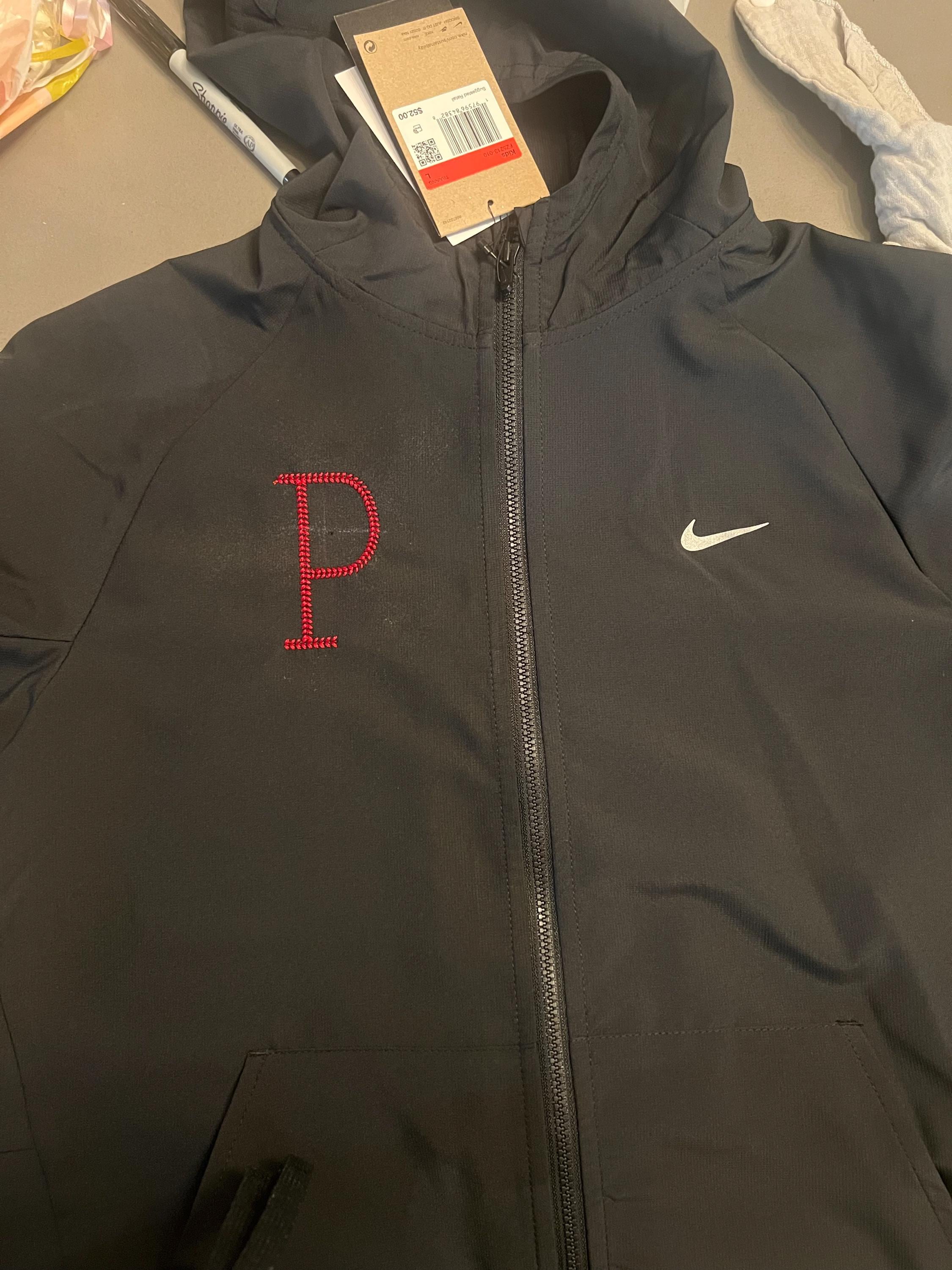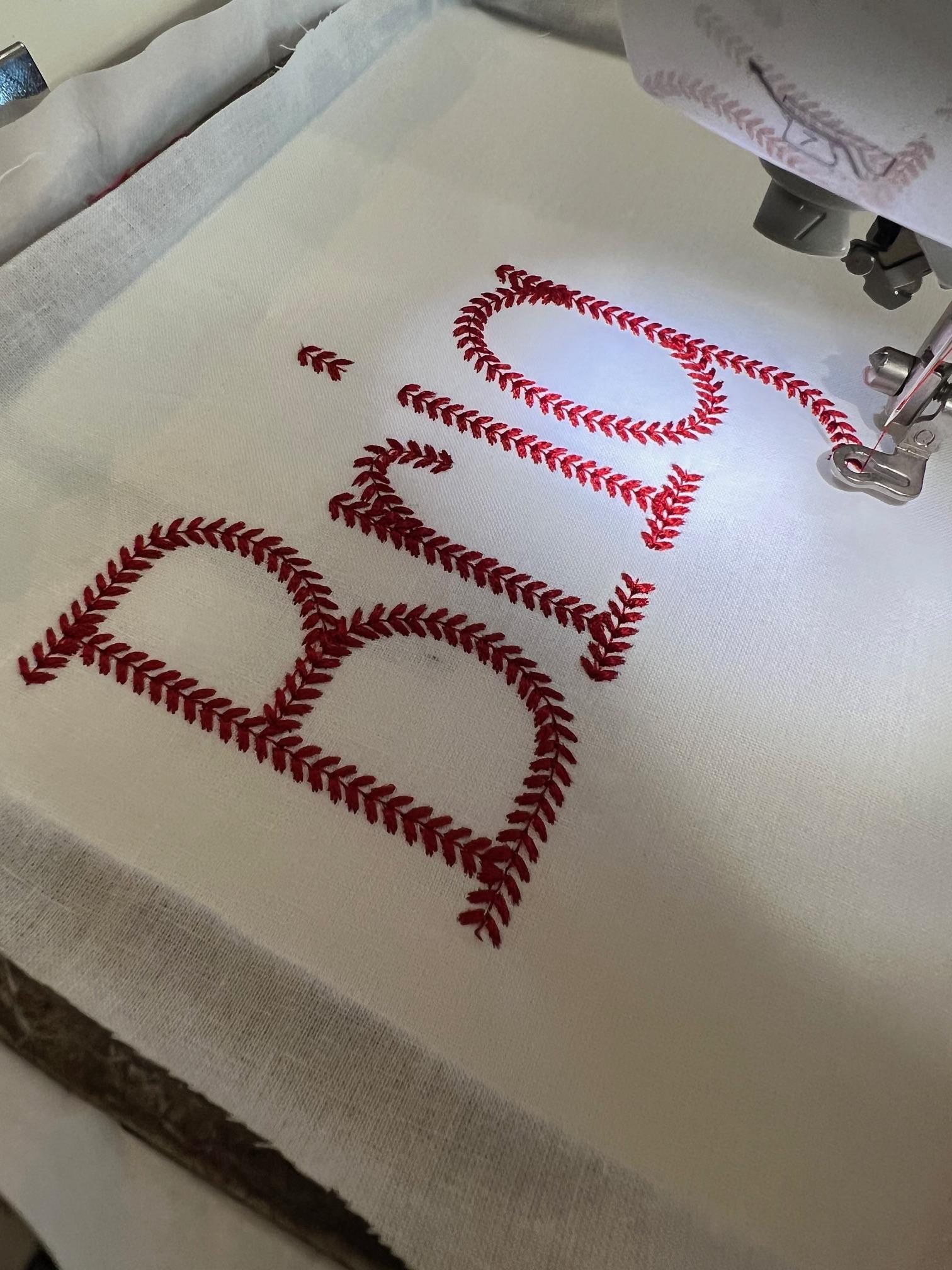
About This Design
The Baseball Stitch Block Varsity Font is an in-the-hoop embroidery design perfect for crafting personalized sports gear. This alphabet design features uppercase, lowercase letters, numbers, and punctuation, making it versatile for any project. Searchers often look for 'baseball font embroidery', 'varsity lettering designs', and 'sport-themed embroidery fonts'. Whether you're stitching for kids' jerseys or sporty accessories, this font will elevate your creations!
- Design contents: uppercase, lowercase, numbers, punctuation